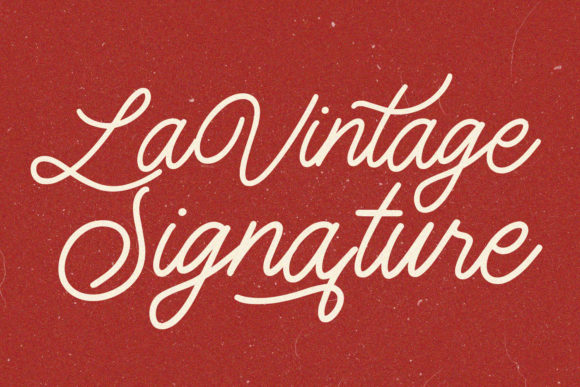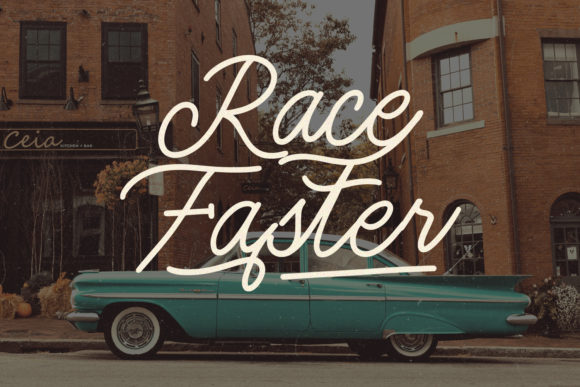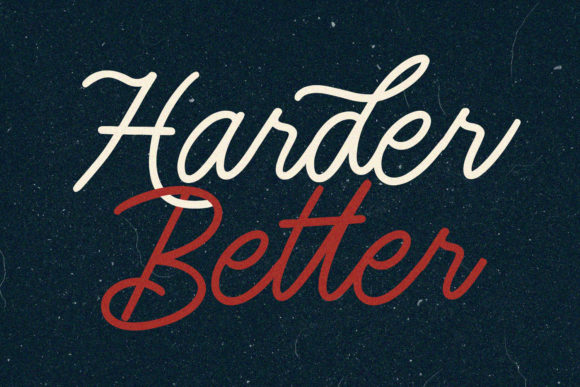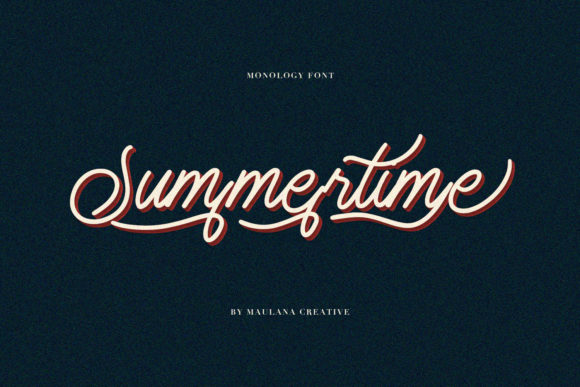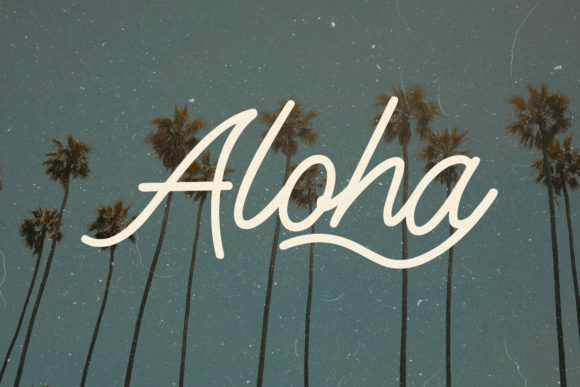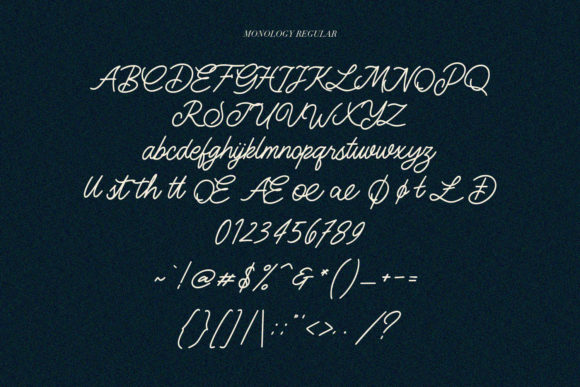
Introduction to Monology Font
As designers, we’ve all been there – staring at a blank canvas, waiting for that perfect font to spark our creative project into life. It’s the moment when everything comes together, and our vision starts to take shape. For many, this moment is elusive, but with the right design resource, it can become a regular occurrence. Enter the Monology Font, a stunning script font that’s about to revolutionize the way you approach typography.
This high-quality font boasts an authentic handcrafted feel, making it perfect for a wide range of creative projects, from signature and stationery to logos and book covers. With its transparent background and elegant design, the Monology Font is an invaluable addition to any designer’s toolkit. And the best part? It’s available for free download, making it an accessible resource for designers of all levels.
Key Features of Monology Font
- High-quality, professional font design suitable for creative projects
- Transparent background, making it ideal for use in graphic design and digital art
- Unique, modern design with a clean and minimalist aesthetic, perfect for modern creative projects
- Designed to be highly legible and versatile, making it suitable for a wide range of applications
Honest Review: Monology Font
As a designer, I’ve come across numerous fonts that claim to elevate a creative project, but few truly deliver. The Monology Font, however, has impressed me with its high quality and unique character.
- ✨ Unique character and style
- ✨ High-quality design
However, there are some limitations to the Monology Font. For one, it may not be the best choice for projects that require a more traditional or classic look. Additionally, the font’s unique character may not be to everyone’s taste.
Overall, I’m quite impressed with the Monology Font. It’s a great design resource for designers looking to add some creativity to their projects. While it may not be perfect, it’s definitely worth considering for your next design project.
How to Use Monology Font
The Monology Font is a high-quality design resource ideal for creative projects requiring a unique and modern touch. This versatile font can be used in a variety of applications, including digital design and print media.
The Monology Font is commonly used in:
- Marketing materials, such as brochures and flyers
- Digital design projects, such as websites and social media graphics
Getting the Most Out of Monology Font
To get the most out of the Monology Font, experiment with different font sizes, colors, and styles to find the perfect combination for your creative project.
Great Vibes Font is a modern, high-quality font ideal for creative projects that require a fresh and youthful look. It’s perfect for use in design resources such as posters, flyers, and social media graphics. Great Vibes Font features a transparent background and a range of styles, from casual to formal. Compared to Monology Font, Great Vibes Font is more playful and energetic, making it a great choice for projects that need a boost of creativity.